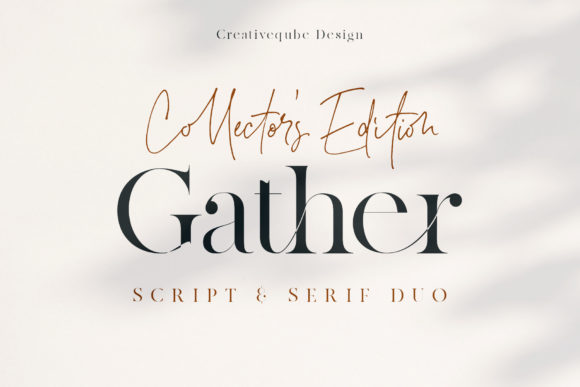
Journey into the realm of impeccable elegance with Gather Collector's Edition Font - a duo font pairing that dances gracefully across your designs, leaving an indelible trail of allure and sophistication. This captivating font duo consists of a striking script font and a poised serif font, harmoniously crafted to complement each other in exquisite unison.
Immerse yourself in the world of Gather Collector's Edition Font, where signatures become art and words transform into enchanting stories. Let this font duo elevate your creative endeavors to dizzying heights, leaving your audience captivated by its refined charm.
The script font possesses a natural, almost ethereal flow, reminiscent of a master calligrapher's hand. Its strokes possess an inherent grace, mimicking the fluid motion of a painter's brush, adding a touch of artistry to your every word. Each letter seamlessly transitions into the next, creating a visual tapestry that enthralls the eyes and ignites the imagination.
Juxtaposed against the script font is the serif font, exuding an aura of timeless elegance. Its meticulously crafted serifs add a touch of refinement, evoking the grandeur of classical literature and architectural masterpieces. The balance between the two fonts is nothing short of exquisite, creating a harmonious blend of old-world charm and contemporary flair.
Together, they form an unstoppable force, ready to make a lasting impression on any design project you envision. Whether gracing personal invitations, business cards, or marketing materials, Gather Collector's Edition Font will effortlessly elevate your work, captivating your audience and leaving them yearning for more.
But Gather Collector's Edition Font is more than just a pretty face. It's a versatile workhorse that adapts seamlessly to a myriad of design styles and applications. From heartfelt handwritten notes to professional reports, from vibrant social media posts to eye-catching logos, this duo font effortlessly rises to meet the challenge, delivering exceptional results every time.
Don't settle for ordinary fonts that blend into the background. Embrace the power of Gather Collector's Edition Font and watch as it transforms your creative visions into extraordinary realities. Its versatility knows no bounds, empowering you to create designs that resonate with your audience, leaving an enduring legacy of beauty and elegance.
So, embark on this creative journey today and let Gather Collector's Edition Font be your guiding light. Discover the endless possibilities that await you as you unlock the true potential of this extraordinary font duo. Let your creativity flourish, and your designs take center stage, forever etched in the minds of those who behold them.